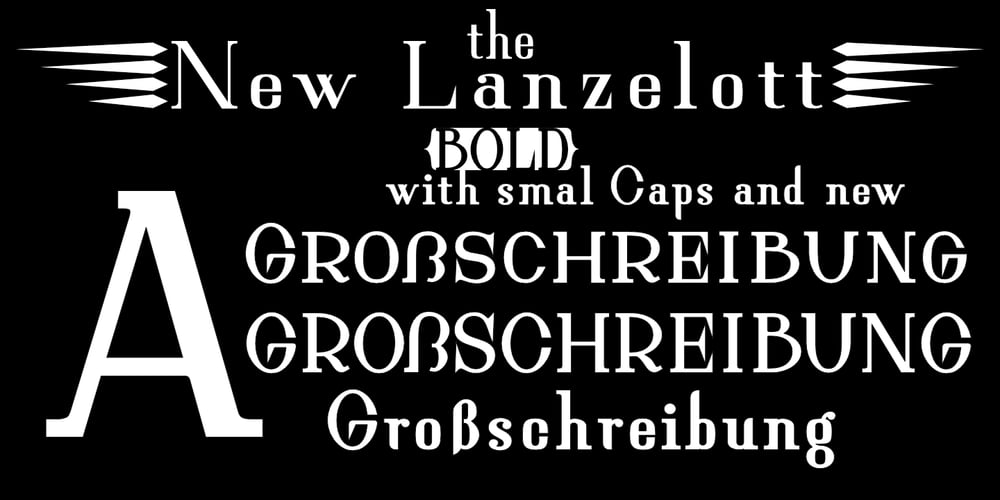
New Lanzelott
New Lanzelott font
New Lanzelott Font Family was designed by Otto Maurer and published by Otto Maurer. New Lanzelott contains 13 styles and family package options. The New Lanzelott is a brand new Version of an old Font of me called Lanzelott. The new Version get more curves and round Glyphes, it get more Soul. The Serif – Versions are shorter but more exactly. Every Font comes with many Open-type-features and Handmade Kerning. I like the old Version but this much better, much beautyfuller. All Fonts come with the German new big sharp S and a smaler sharp S and the normal sharp S. I you Write SS and want the big sharp S, you have only to make it with the Ligatur-Feature I hope you ll like it…